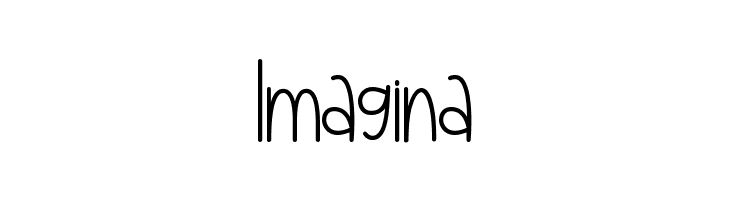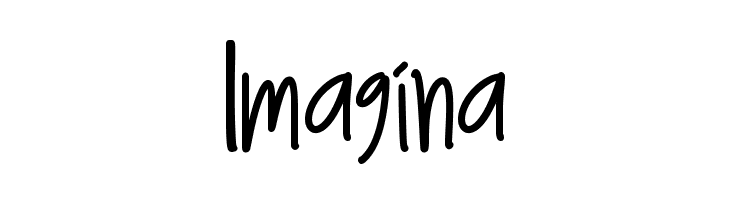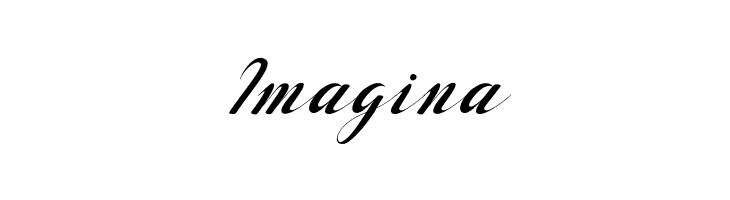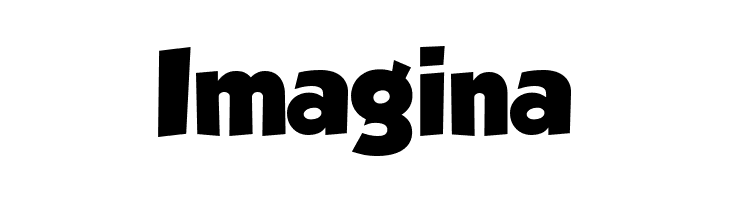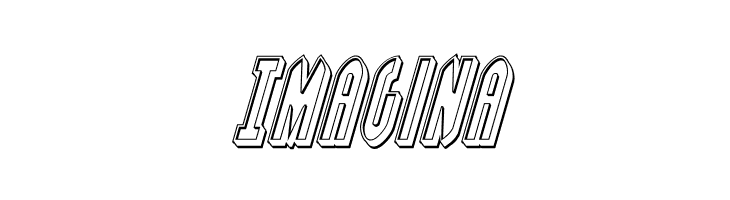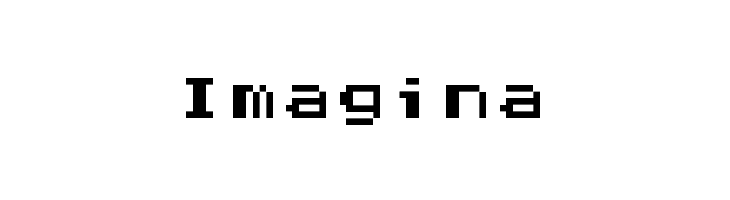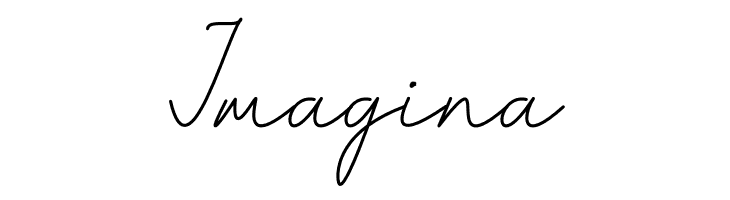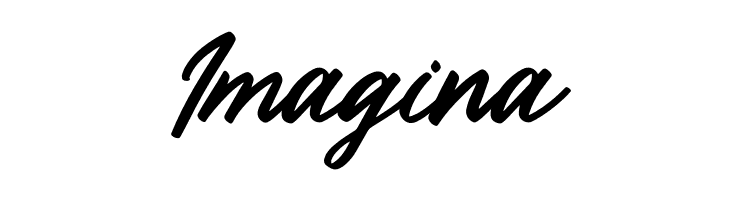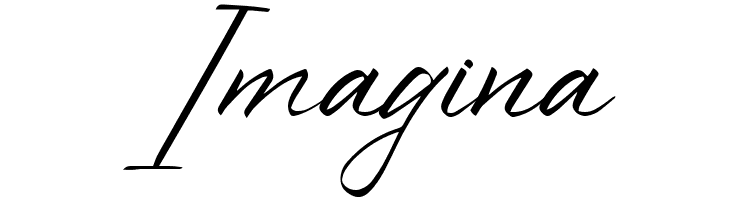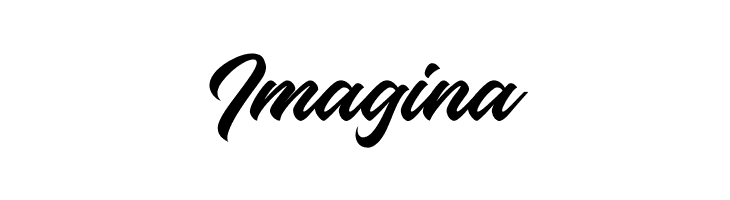
A bold, rugged font with a vintage, industrial feel.
A charming and elegant script font with fluid, graceful strokes.
A bold, italic, futuristic font with angular, geometric characters.
A bold, geometric font with an industrial and futuristic aesthetic.
A digital-style font with geometric, LED-inspired characters.
A bold, expressive handwritten font with dynamic cursive letterforms.
A bold, italic font with a dynamic and energetic style.
A bold and assertive font with thick strokes and high legibility.
A modern, italicized sans-serif font with an outline effect and condensed style.
A bold, left-italic sans-serif font with a modern and dynamic style.
A modern, italicized outline font with a dynamic and airy appearance.
A graceful and elegant script font with flowing, connected strokes.
A bold, playful font with dynamic strokes and whimsical curves.
A playful, dotted font with a whimsical, hand-drawn style.
A playful, star-embellished font with a hand-drawn feel.
A playful, whimsical font with bold outlines and handwritten script elements.
A playful, casual handwritten font with irregular strokes.
A playful, casual handwritten font with fluid strokes and a dynamic style.
A playful, handwritten font with a youthful and energetic vibe.
A playful, casual handwritten font with lively, irregular strokes.
A playful, handwritten font with bold strokes and a casual, whimsical style.
A playful, whimsical handwritten font with loose, flowing strokes.
A bold, playful handwritten font with rounded, irregular letterforms.
A playful handwritten font with a whimsical and creative style.